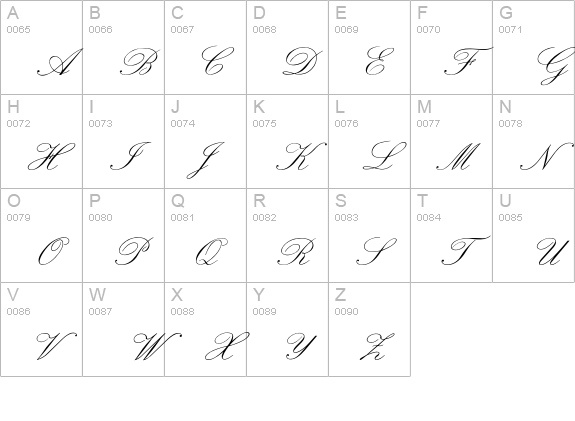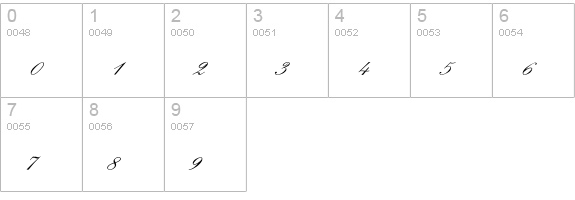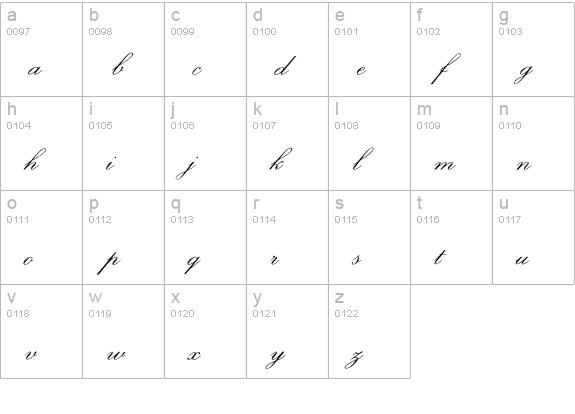
HelenaScript Font Details
HelenaScript font is a beautifully crafted typeface that exudes elegance and sophistication. Its delicate curves and flowing lines make it perfect for adding a touch of femininity to any design project. Whether you're creating wedding invitations, branding materials, or simply want to add a touch of grace to your personal projects, HelenaScript is the ideal choice. What sets HelenaScript font apart is not only its stunning aesthetics but also its accessibility. This font is available for free download at FontsMarket.com, making it easily accessible to designers and enthusiasts alike. With just a few clicks, you can bring this exquisite font into your creative arsenal and start incorporating its charm into your designs. HelenaScript font offers a wide range of characters, including uppercase and lowercase letters, numerals, punctuation marks, and special ligatures. This versatility allows you to create captivating typography compositions that are uniquely tailored to your vision. The fluidity of the strokes and the seamless letter connections give HelenaScript font a distinctive handwritten aesthetic, adding a personal touch to your designs. Whether you're looking to create romantic wedding invitations, elegant logos, or graceful quotes, HelenaScript font provides you with the tools to bring your ideas to life. Its timeless appeal and versatility make it suitable for a variety of design applications, making it a valuable addition to any font collection. So why wait? Enhance your designs with the ethereal beauty of HelenaScript font. Download it for free at FontsMarket.com and unlock a world of possibilities. Let this enchanting font be the catalyst for your creativity and watch as your designs come to life with a touch of elegance and grace.